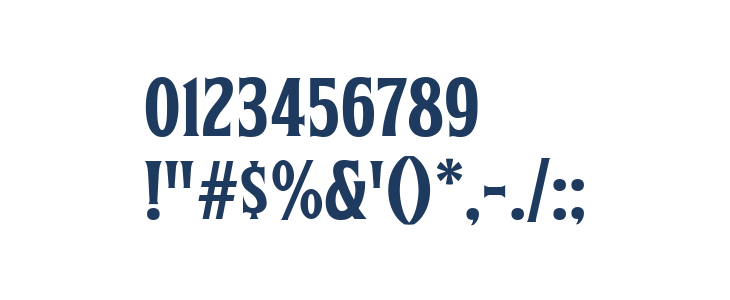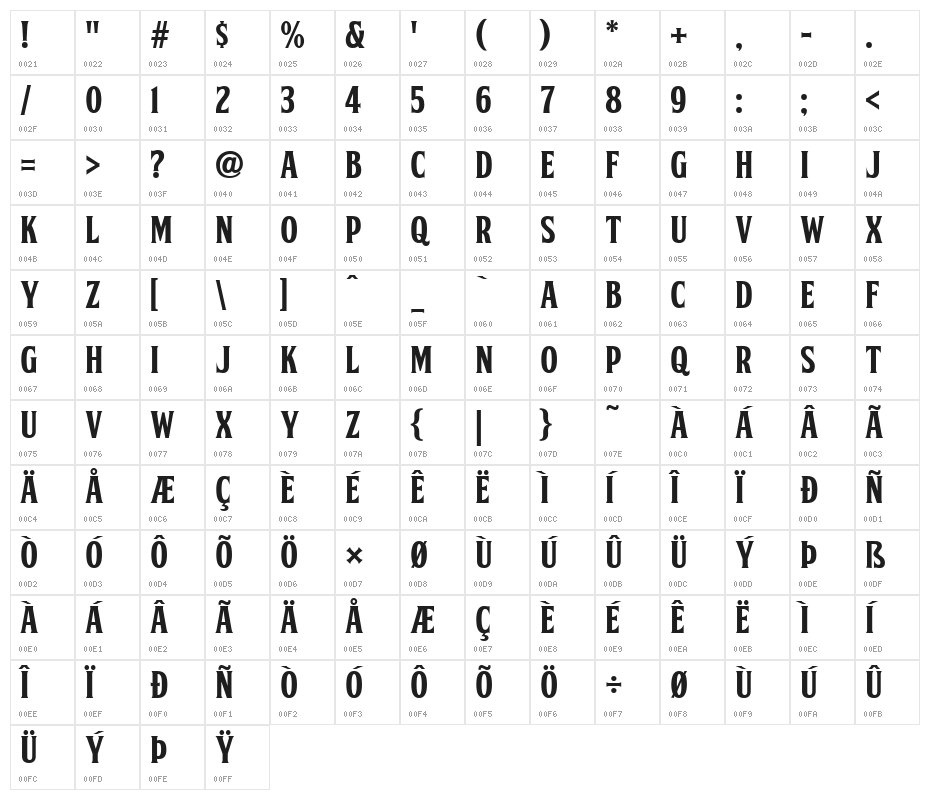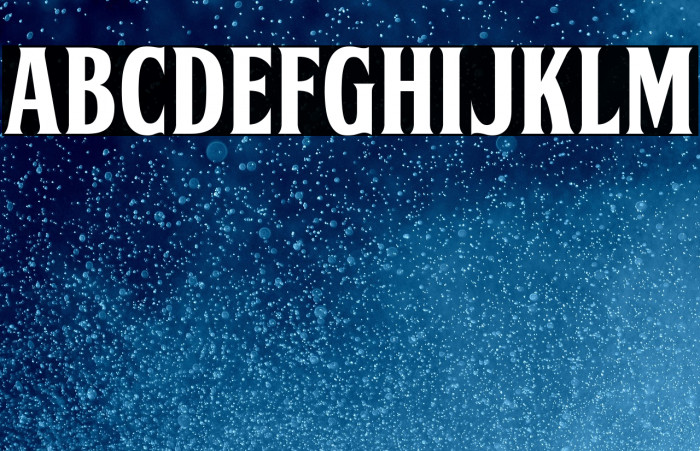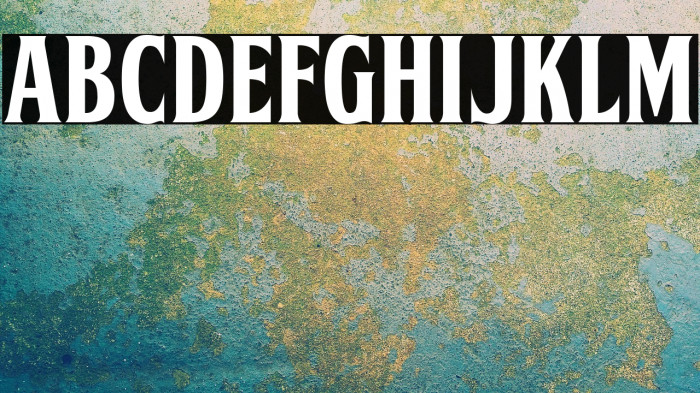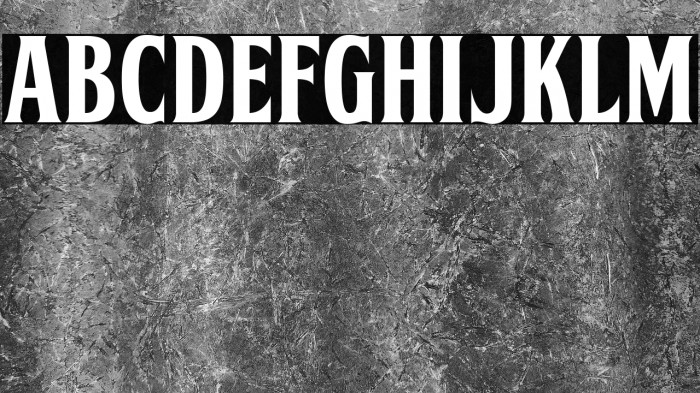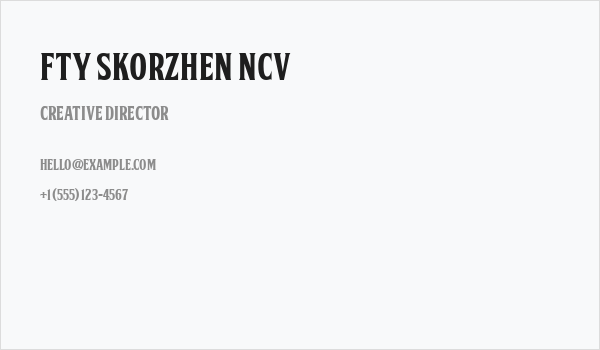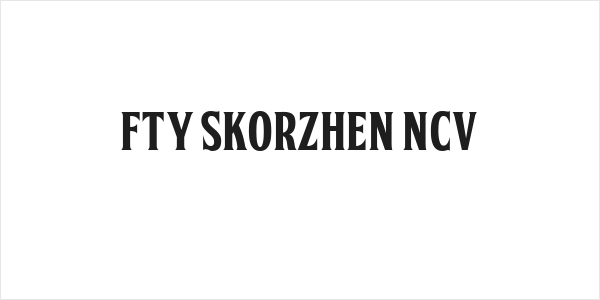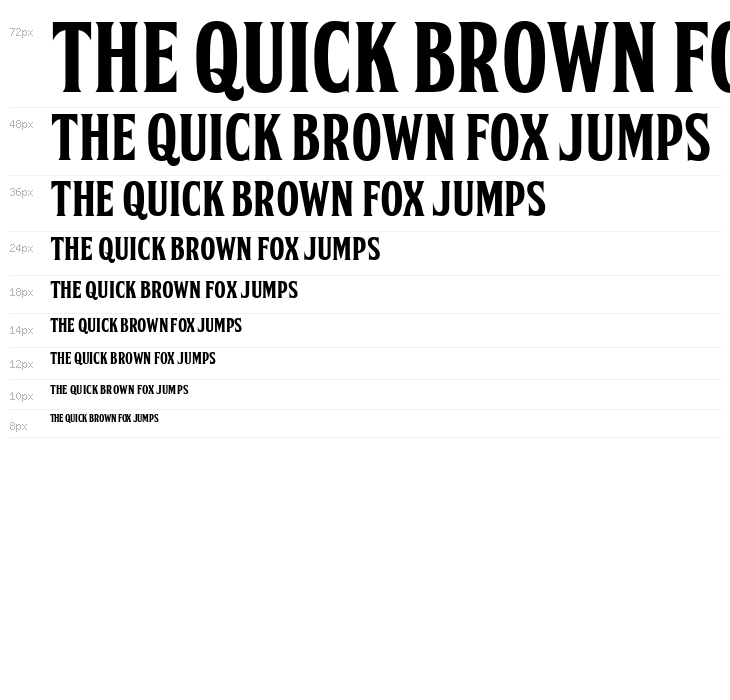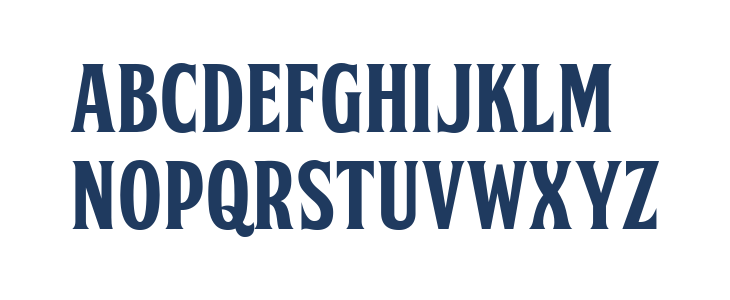
FTY SKORZHEN NCV Font
FTY SKORZHEN NCV Description
This font features bold, dramatic strokes with a strong presence, ideal for making a statement. The uppercase letters are tall and commanding, while the lowercase letters maintain a consistent height, ensuring readability. The numerals are equally bold, matching the assertive style of the alphabet. Special characters are crafted with the same attention to detail, making them stand out. The overall design is reminiscent of vintage poster fonts, with a modern twist that adds versatility. The font's high contrast and tight character spacing contribute to its impactful appearance, making it suitable for various design applications.
| Proposed Projects | Ideal for posters, headlines, branding, and any project requiring a strong visual impact. |